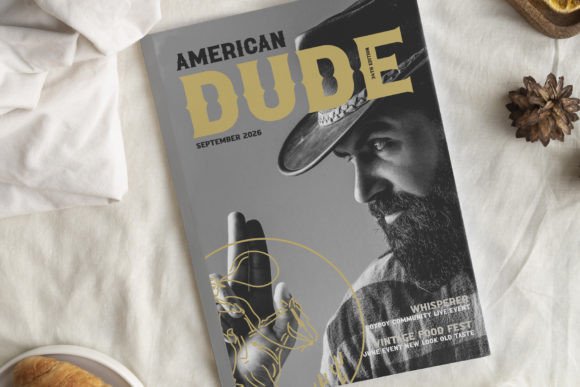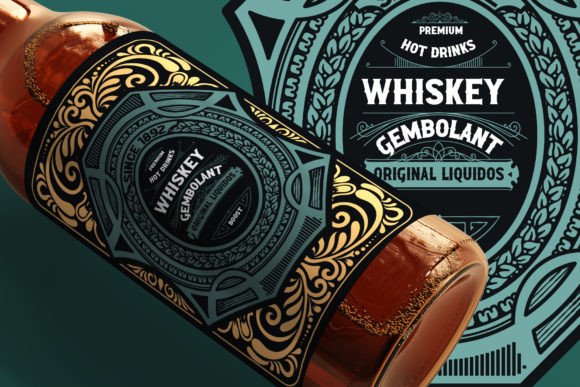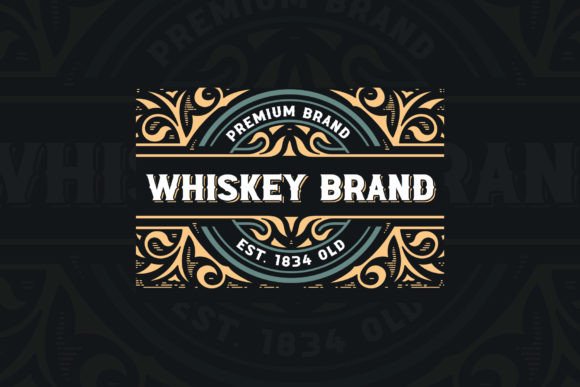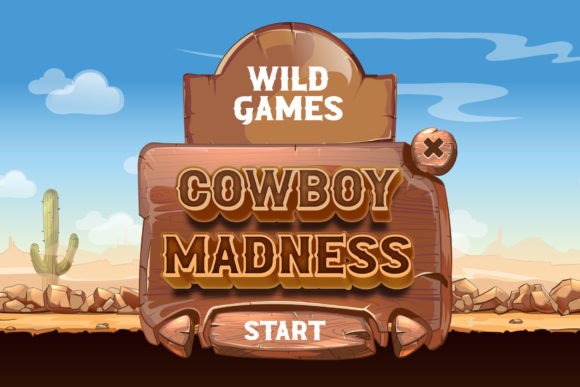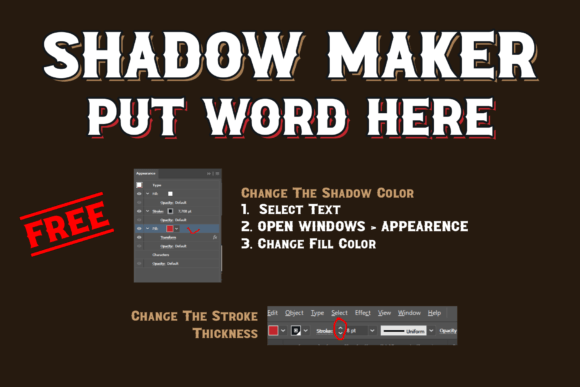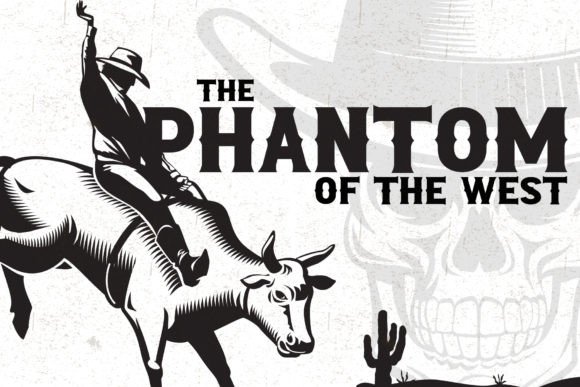
Introducing Deadwood – The Ultimate Serif Western Font
In the world of typography, fonts play a crucial role in conveying the tone and personality of a brand or design. For designers and crafters looking for a unique and versatile font, Deadwood – a serif western font, is an excellent choice. This handcrafted font combines the ruggedness of the old west with a modern touch, making it perfect for various design applications.
The Story Behind Deadwood
Deadwood, a serif western font, is inspired by the lawless and rugged era of the American Old West. The font’s design is rooted in the classic typography of the 1800s, with a modern twist that makes it suitable for contemporary design projects. Each letter has been carefully handcrafted to evoke the spirit of the wild west, with intricate details and a distinctive character.
Key Features of Deadwood Font
- Handcrafted with love: Deadwood font is meticulously designed to ensure that every letter, curve, and line is perfect for your design needs.
- Serif Western Style: The font features classic serifs, reminiscent of traditional western typography, with a unique and modern approach.
- Modern Touch: Deadwood’s modern twist makes it versatile and suitable for a wide range of design applications, from logos and branding to magazine headlines and titles.
- Multipurpose: Use Deadwood font for logo text, brand labels, magazine/publishing headlines, titles, and any other design project that requires a distinctive and bold font.
Design Applications for Deadwood Font
Deadwood font is an excellent choice for various design projects, including:
- Logo Design: Create a bold and memorable logo for your brand with Deadwood font.
- Branding: Use Deadwood font for brand labels, packaging, and marketing materials to evoke a sense of ruggedness and authenticity.
- Magazine and Publishing: Add a touch of the wild west to your magazine headlines, titles, and articles with Deadwood font.
- Title Design: Create eye-catching titles for movies, TV shows, and video games with Deadwood font.
Why Choose Deadwood Font?
With so many fonts available, why choose Deadwood? Here are a few reasons:
- Unique Style: Deadwood font offers a distinctive and bold style that sets it apart from other fonts.
- High-Quality Design: Each letter has been carefully handcrafted to ensure that the font is of the highest quality.
- Versatility: Deadwood font is suitable for a wide range of design applications, making it a great addition to any designer’s toolkit.
In conclusion, Deadwood – a serif western font, is an excellent choice for designers and crafters looking for a unique and versatile font. With its handcrafted design, modern touch, and classic western style, Deadwood font is perfect for various design applications. Whether you’re creating a logo, branding materials, or magazine headlines, Deadwood font is sure to add a touch of the wild west to your designs.